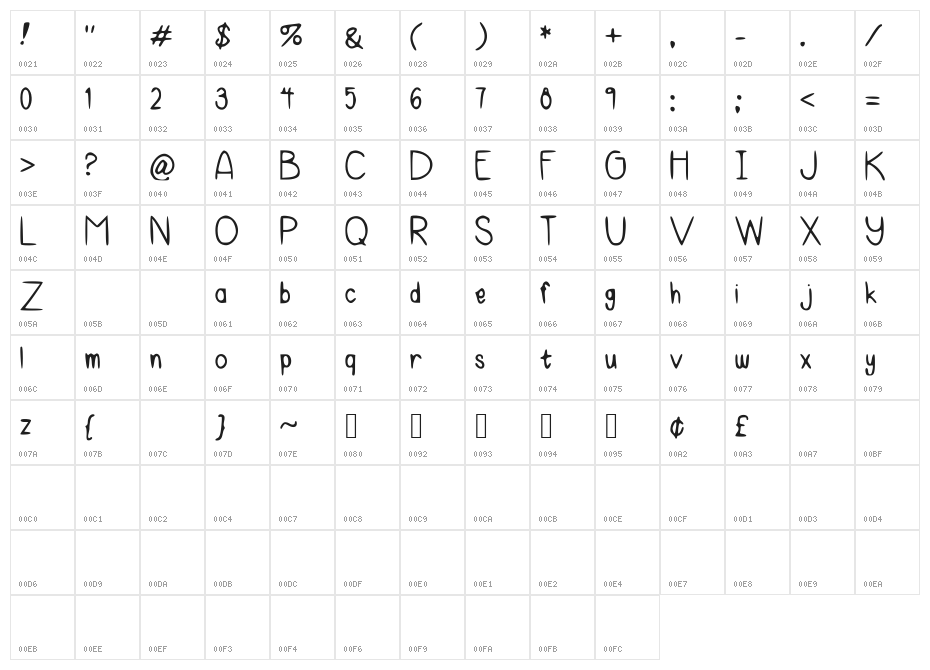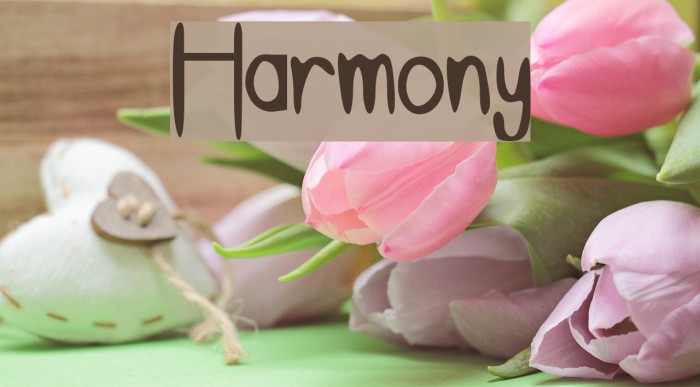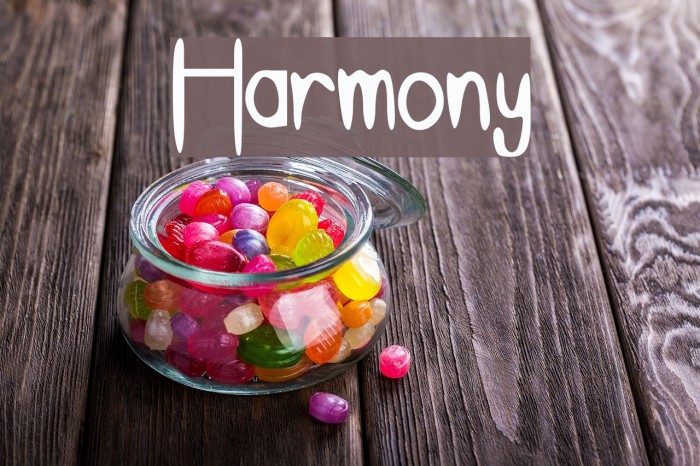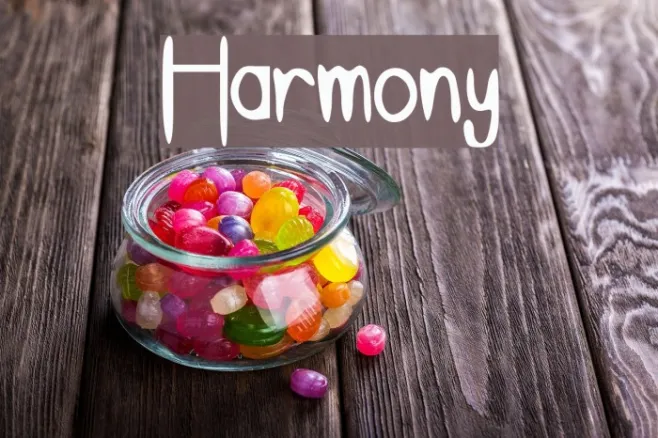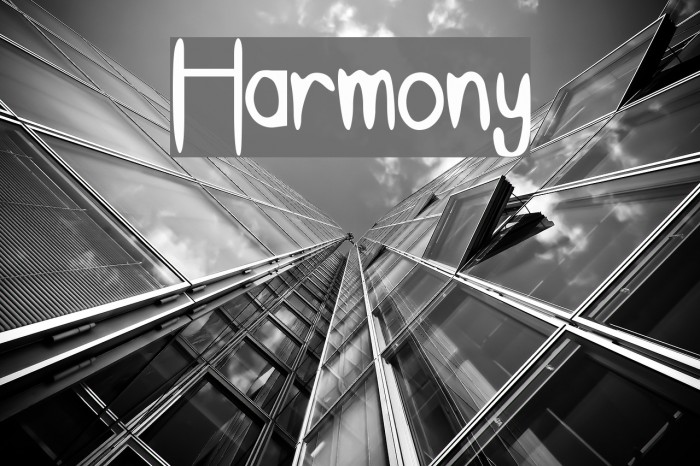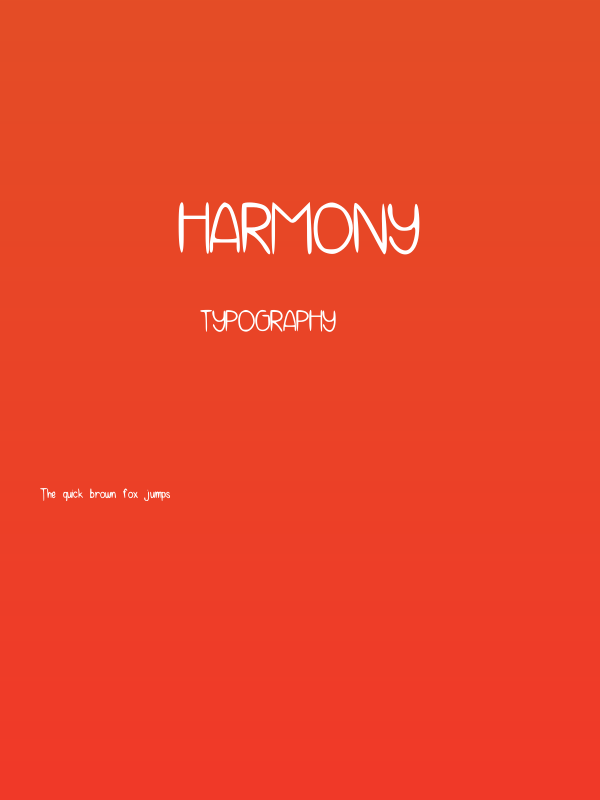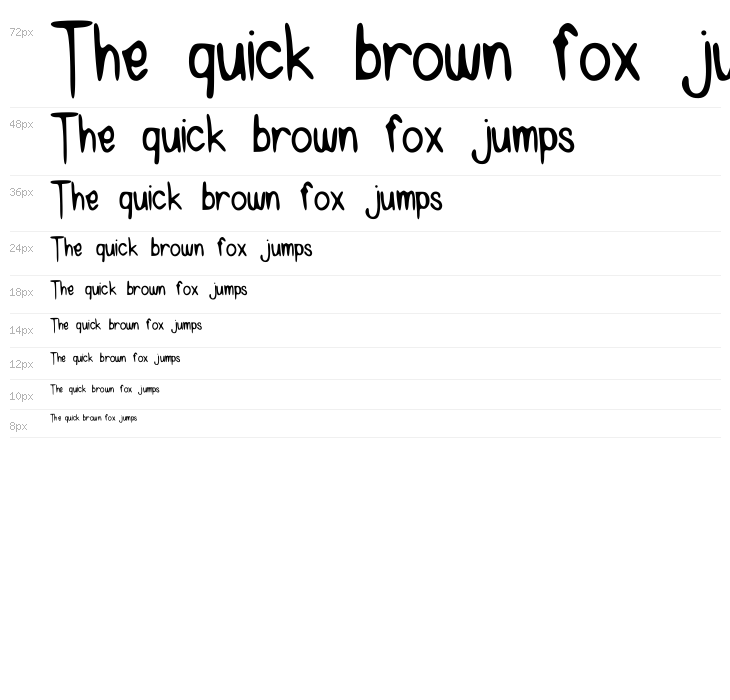
Harmony Font
Harmony Description
This playful and whimsical font features a hand-drawn style with a casual, friendly appearance. The letters are slightly irregular, giving it a unique and organic feel. The uppercase characters are tall and narrow, while the lowercase letters are more rounded and relaxed. The numbers and special characters maintain the same playful aesthetic, making the font versatile for various creative projects. Its informal style is perfect for designs that aim to convey a sense of fun and approachability.
| Proposed Projects | Ideal for children's books, greeting cards, playful branding, and casual invitations. |